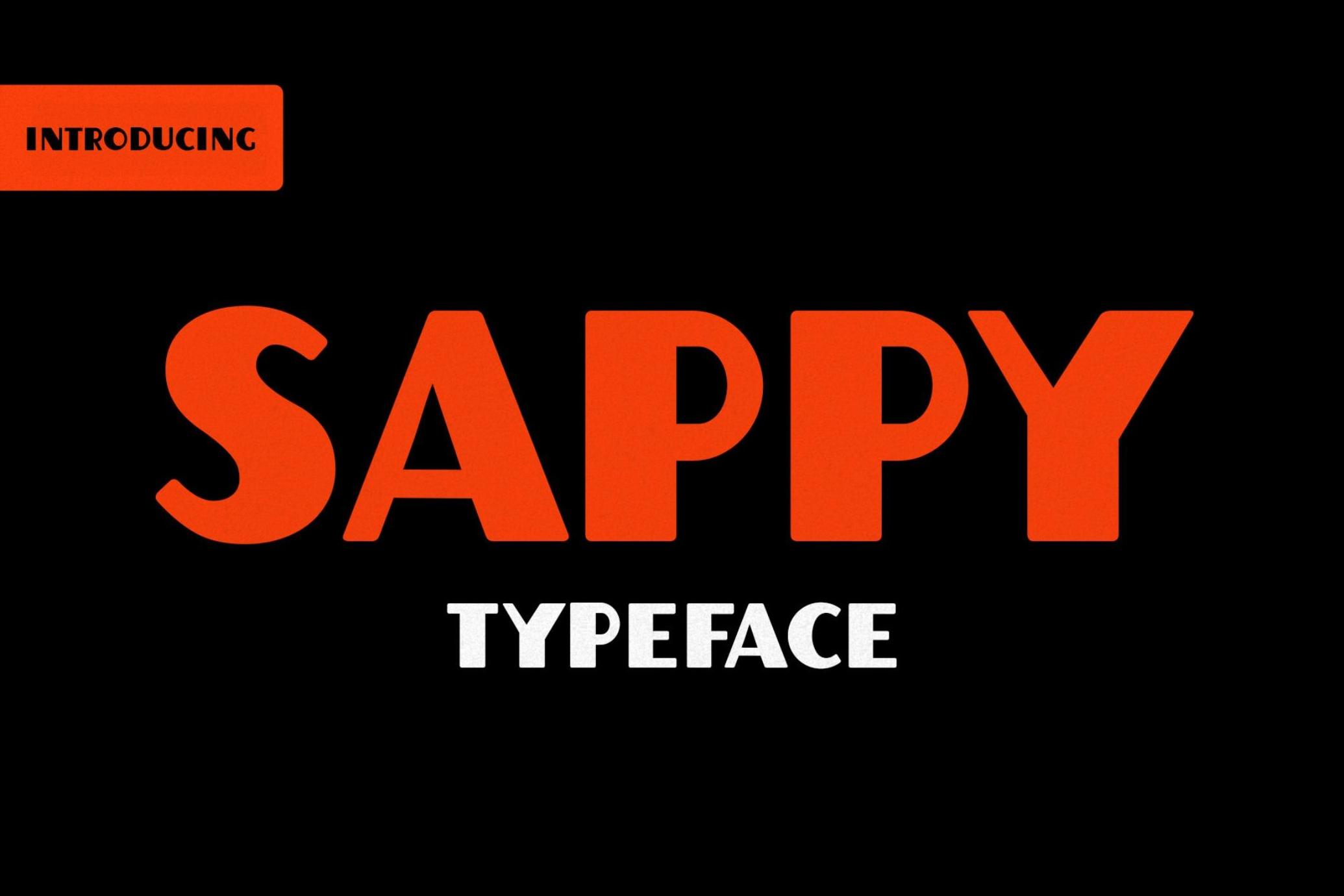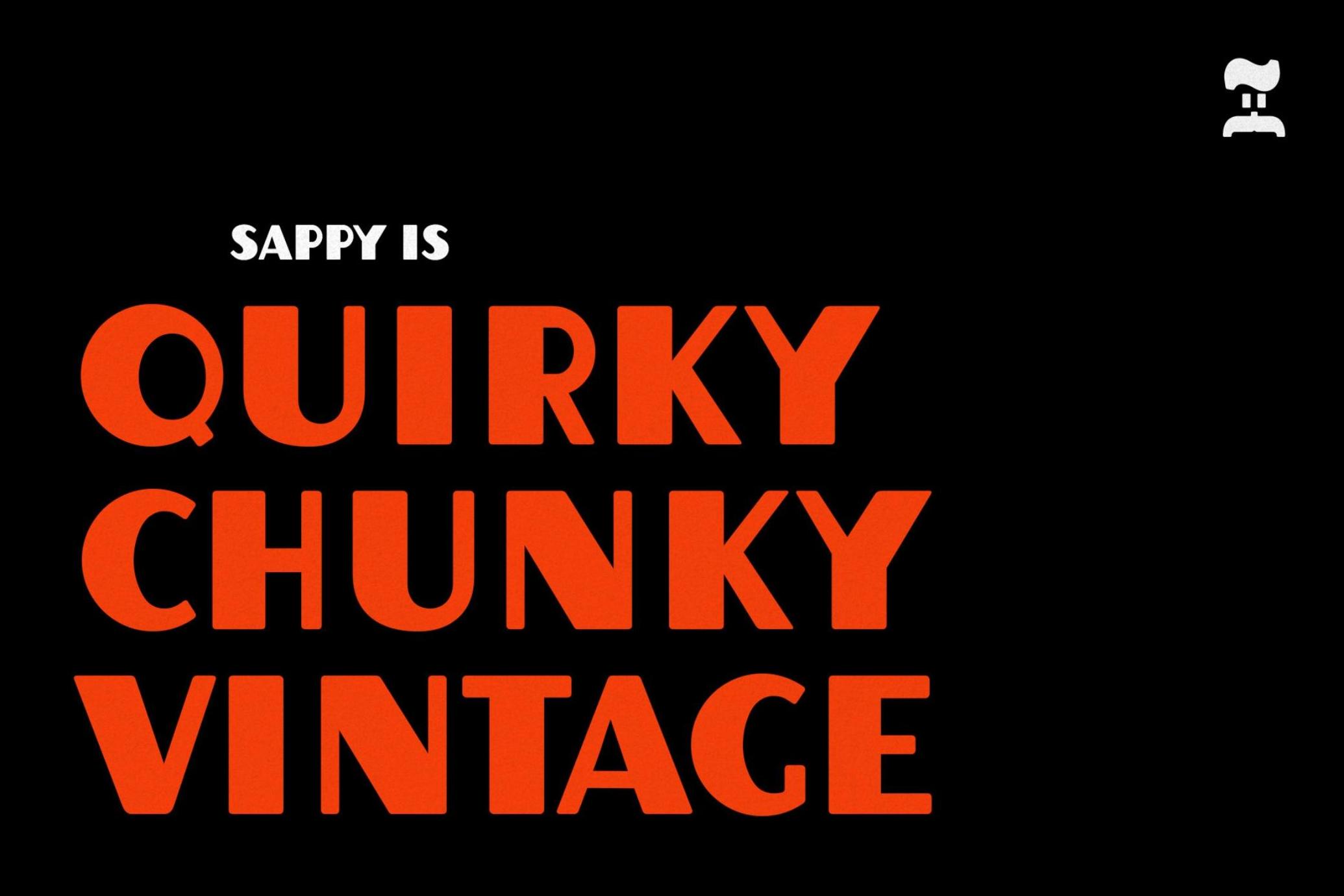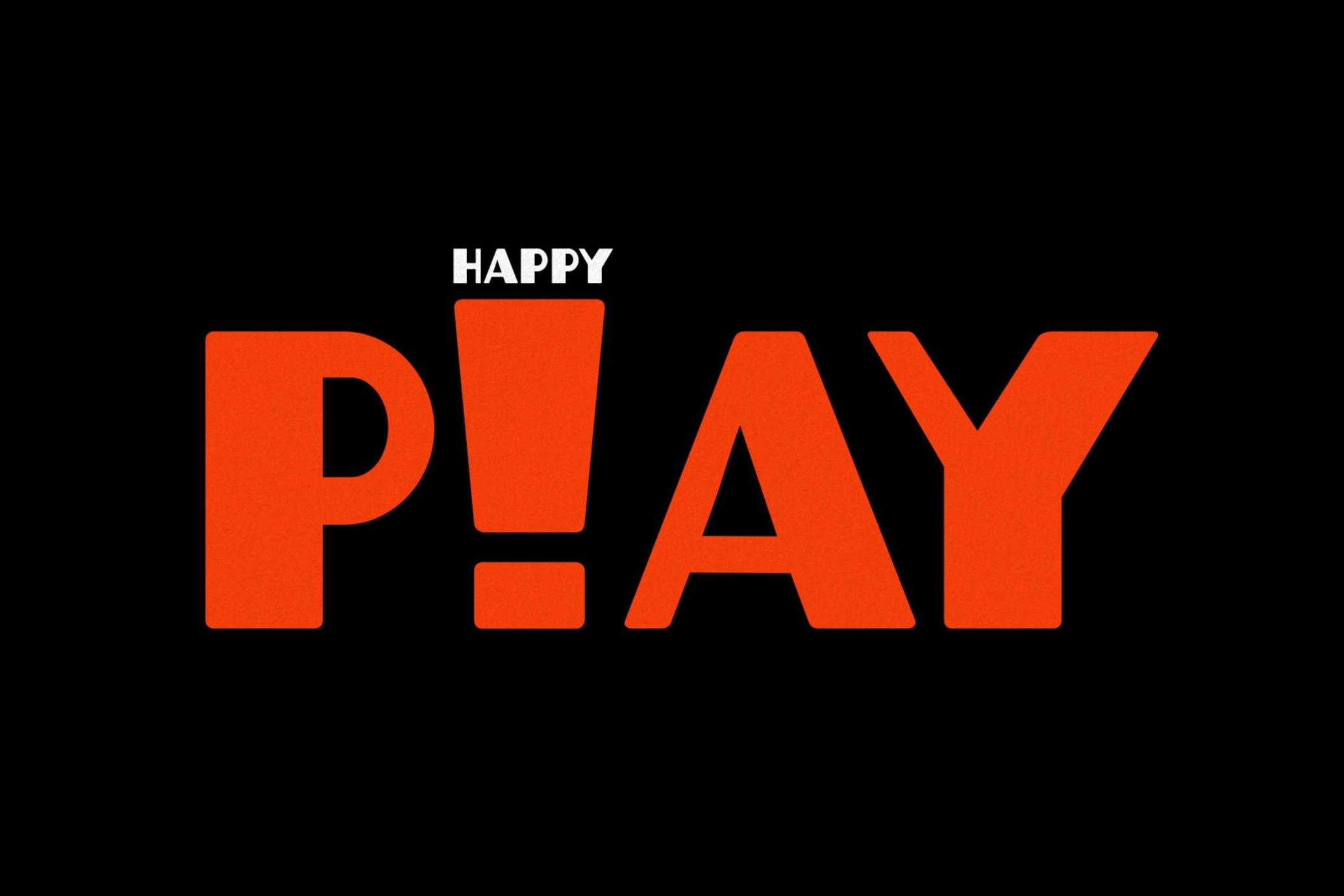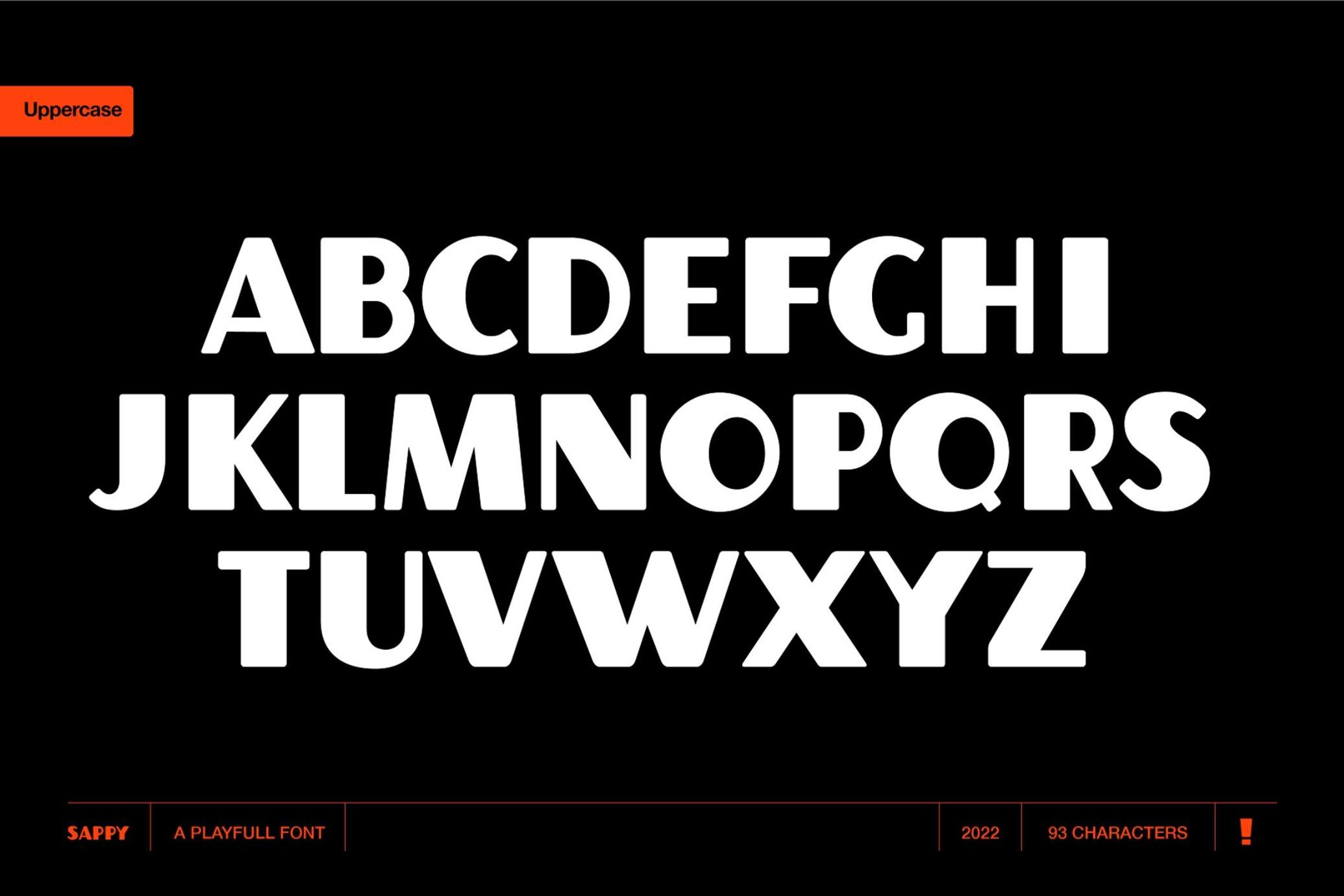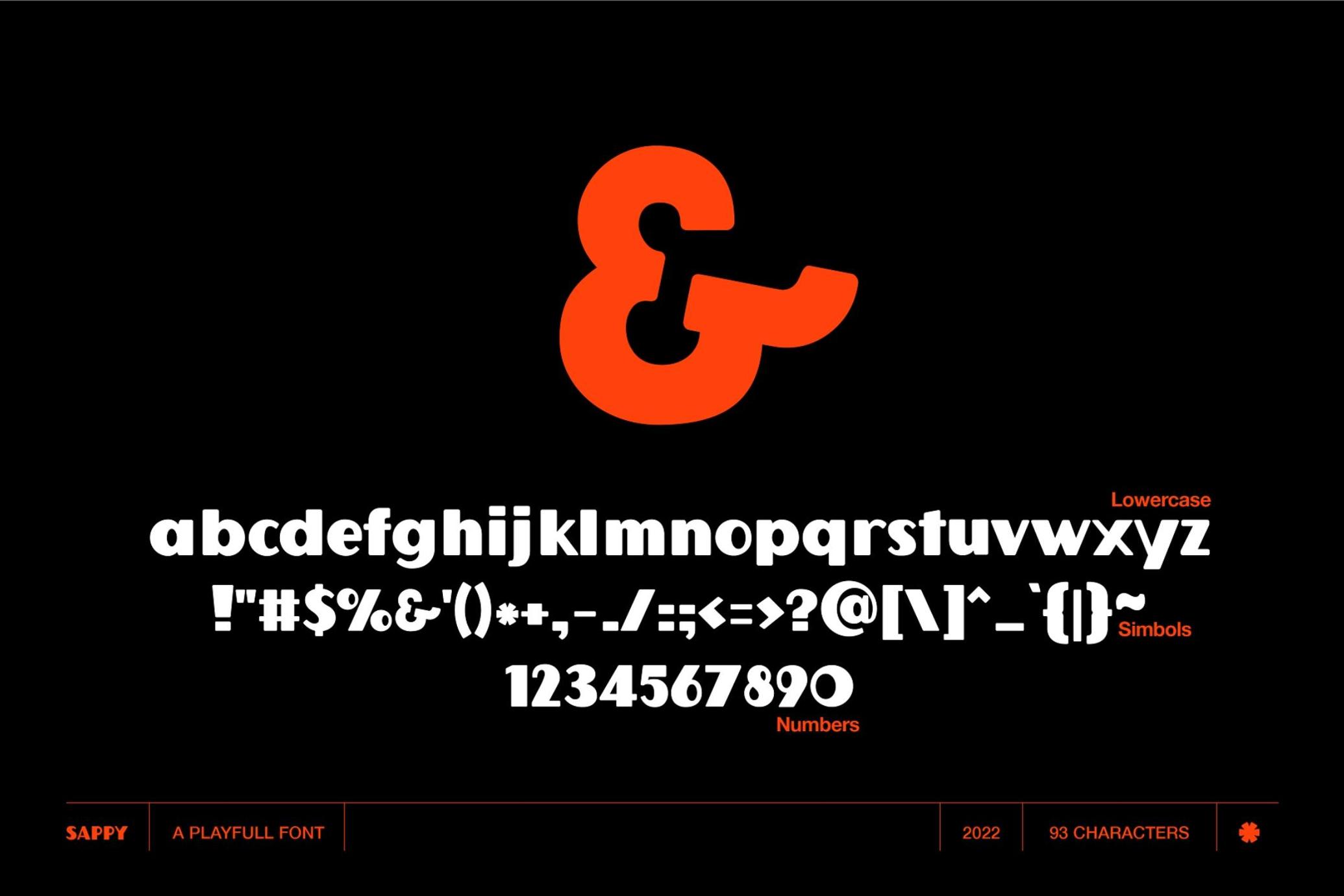
Sappy Sans
Sappy is a thick and juicy display typeface. It has tons of character and charm. This extended width font will work wonders for all sorts of design projects like posters, headlines, magazines, stationary, apparel, branding, menus and more. Sappy includes uppercase, lowercase letters, numerals and punctuation. Download comes in TTF and OTF formats.